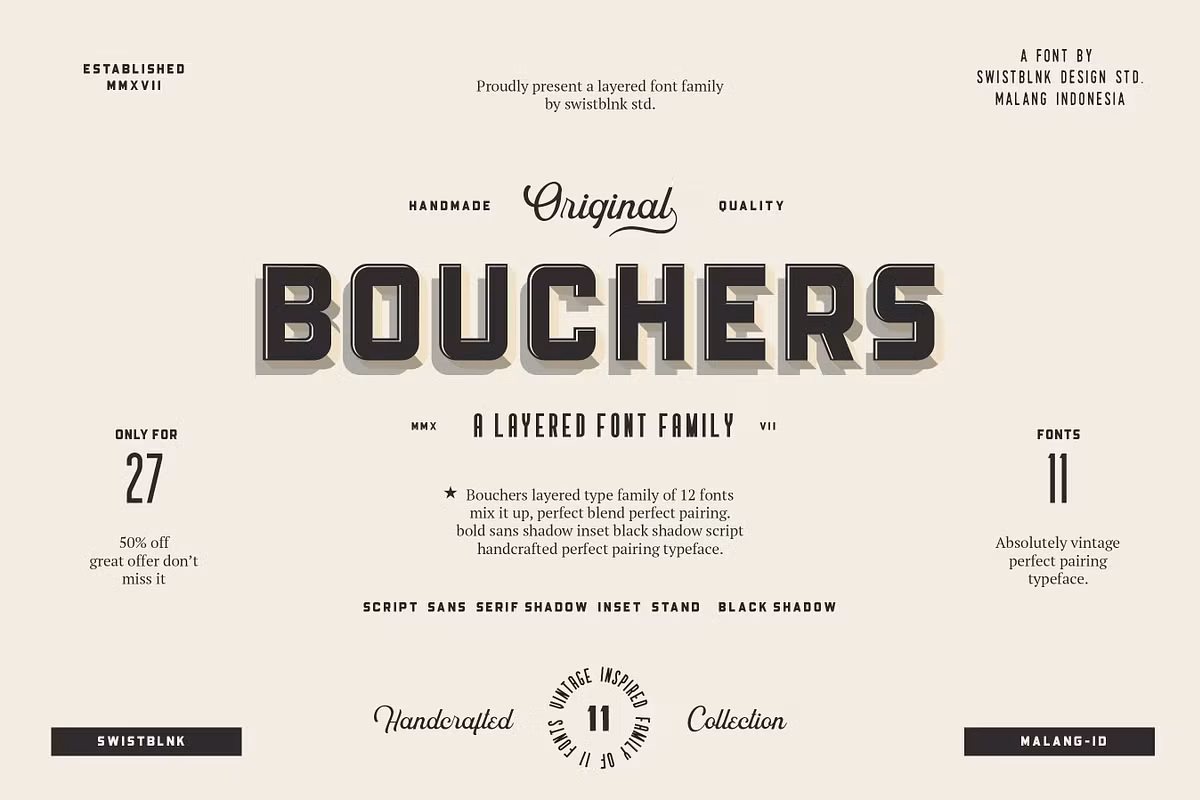
Bouchers Layered | Font Bundle Free Download is a creative and versatile font bundle that includes multiple layered font styles. Perfect for logos, branding, packaging, and more, this font bundle offers endless design possibilities with its unique layering system. Whether you want a clean, bold look or a more textured and dynamic design, Bouchers provides the flexibility you need to create stunning visual projects.